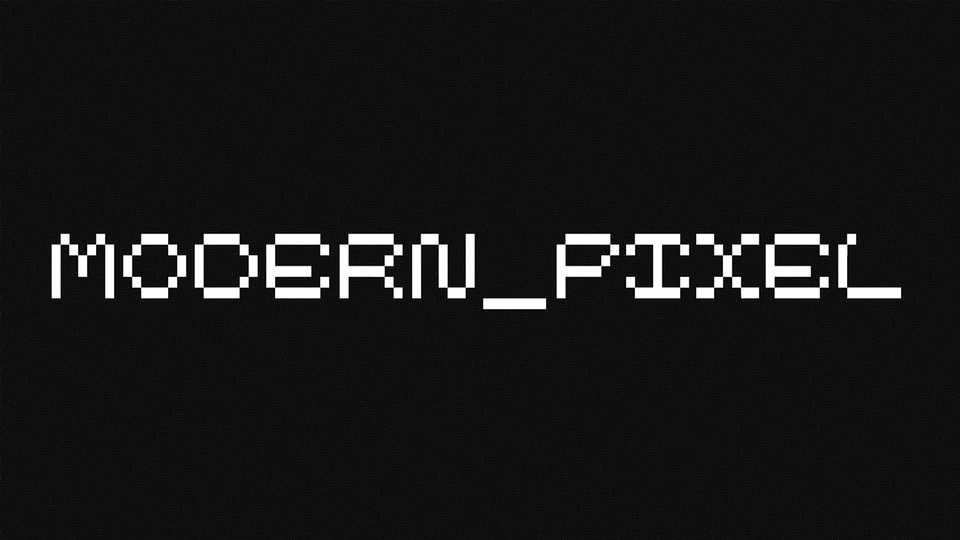
Download Modern Pixel is a display font that combines the nostalgia of classic pixel art with the precision of contemporary design. Modern Pixel font adds a touch of digital heritage and a dose of clean, minimalist style to every letter.